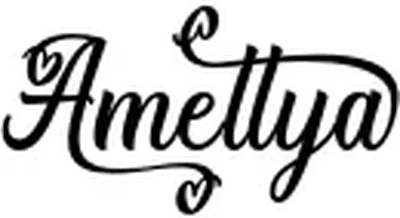
Amellya 2 Font
Amellya 2 brings a confident, polished presence to any design, from business materials to creative campaigns.
Common applications include business cards, posters, web headers, advertising materials, book covers, and corporate identity systems.